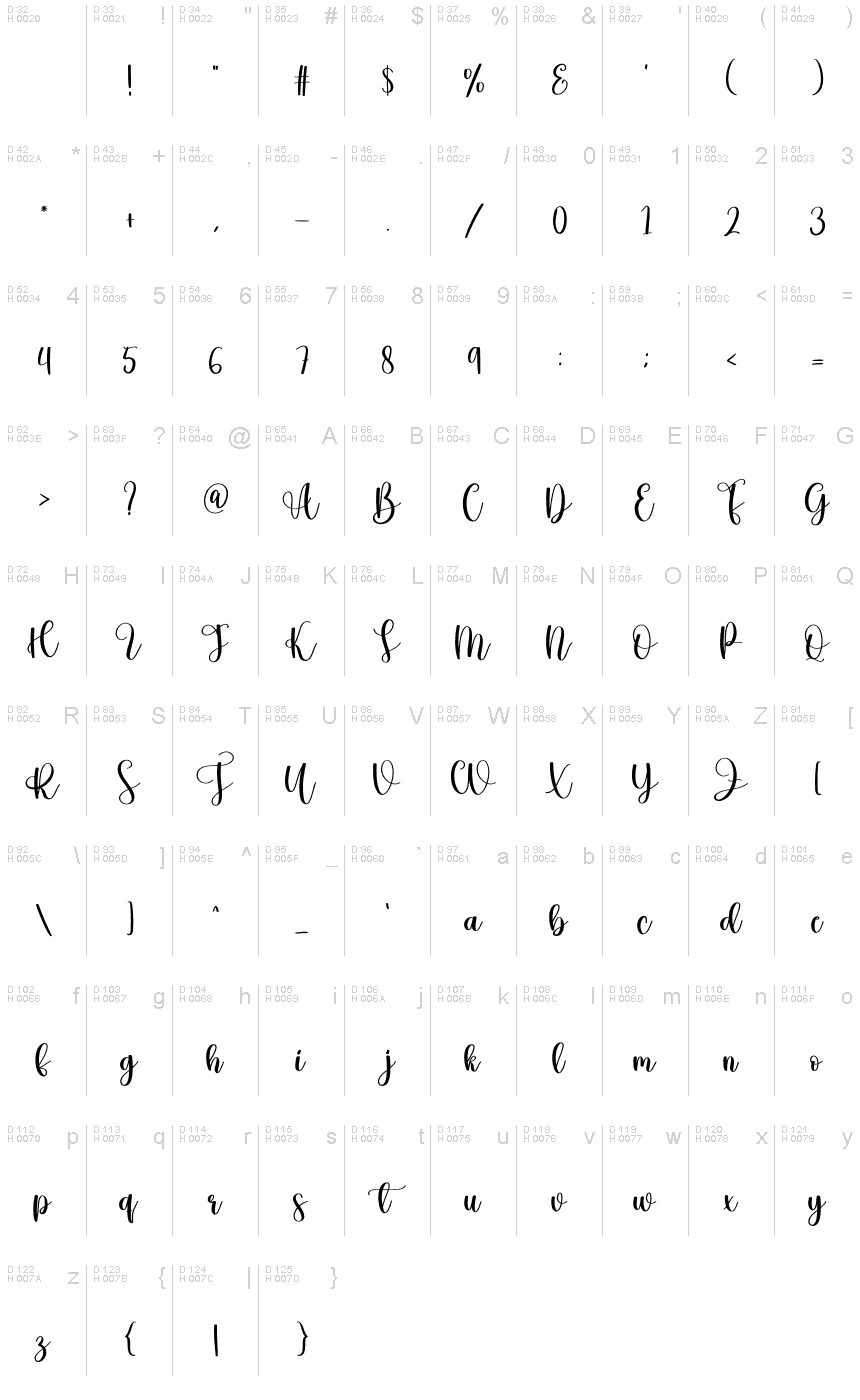
Saturday
Saturday by scratchones is a stunning calligraphy font that exudes elegance and sophistication. Its semi-light weight adds a delicate touch to its beautifully crafted strokes, making it perfect for wedding invitations, greeting cards, and other formal projects. This versatile font can also be used for branding and logo designs, adding a touch of luxury to any product or service. With its flowing curves and graceful letterforms, Saturday is sure to impress and elevate your design projects to new heights.
the latest style letters are perfect for wall displays, wedding invitations, social media post logos, advertisements, product packaging, product designs, labels, photography, watermarks, invitations, stationery, and any project that requires taste handwriting.